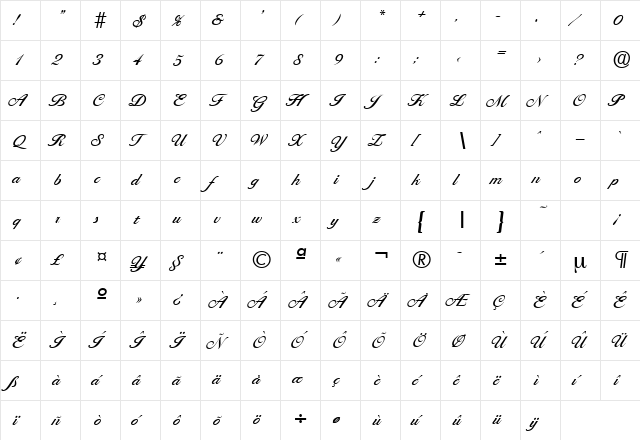
Ballantines-Serial-Medium Regular
Ballantines-Serial-Medium takes a measured approach to typography — its balanced proportions and neutral character make it a reliable workhorse for both digital and print work.